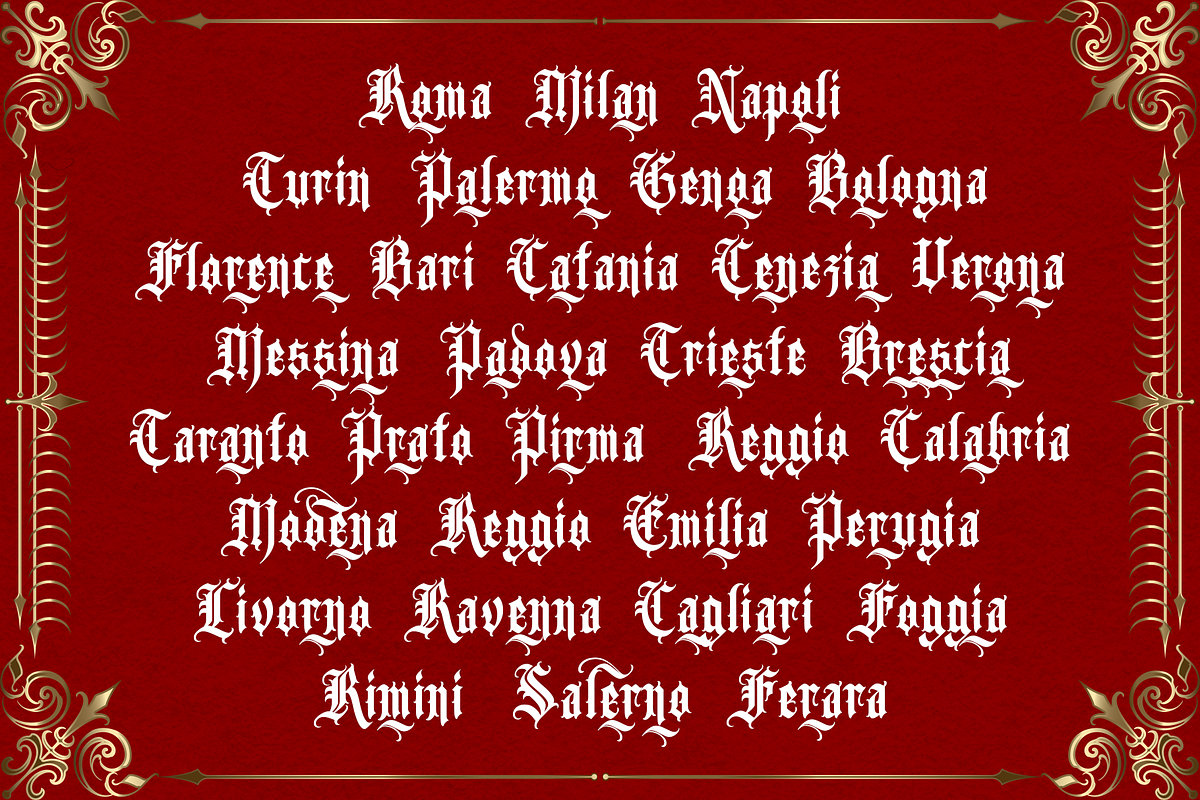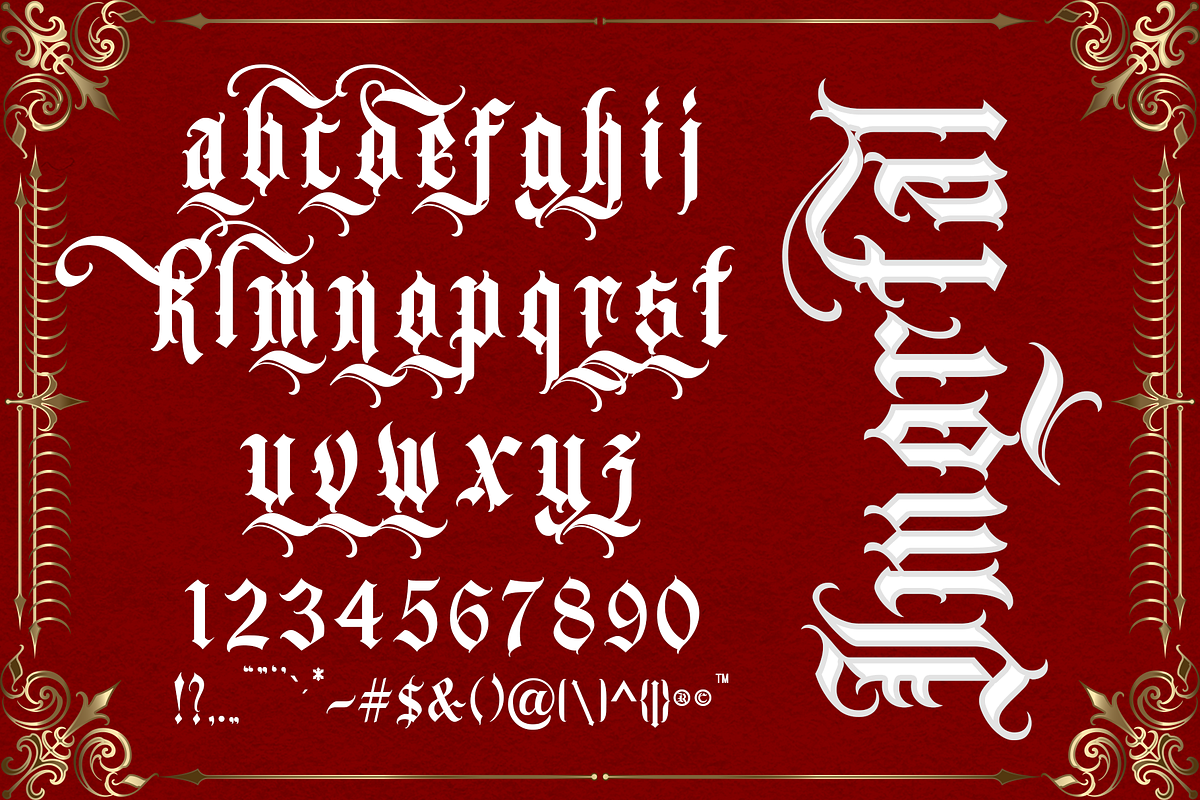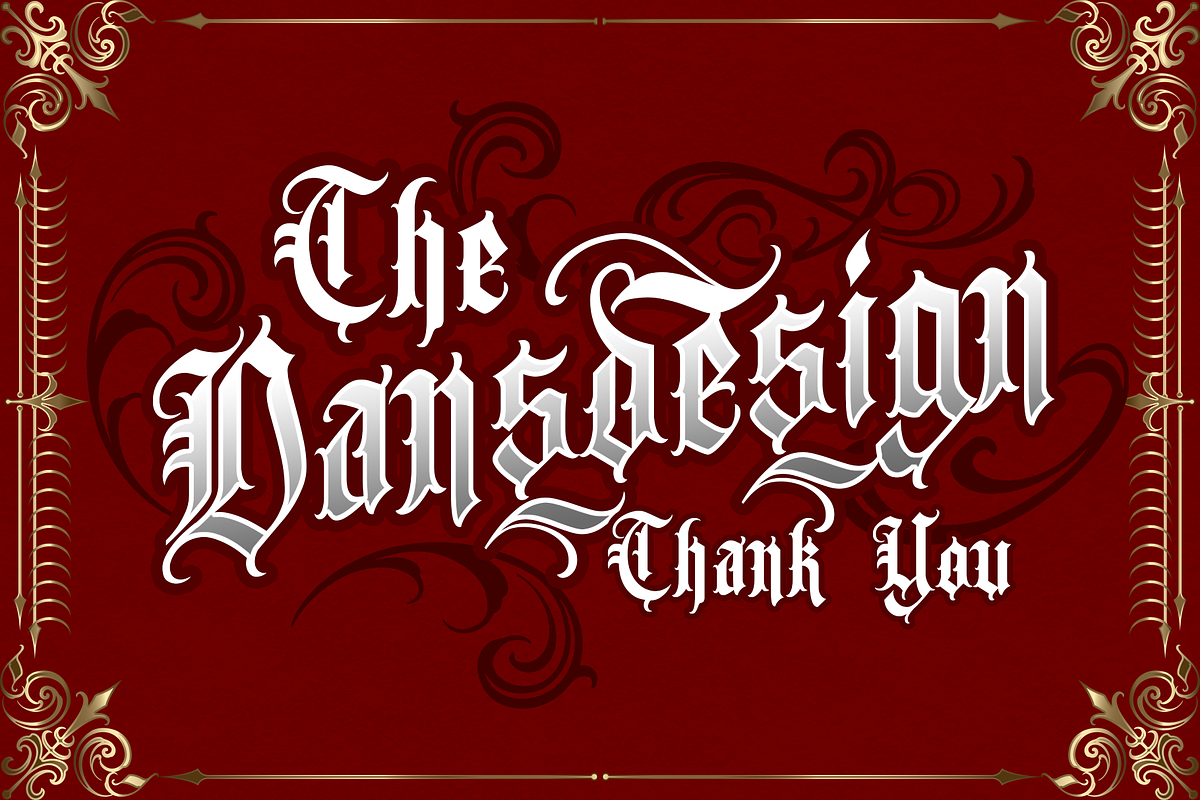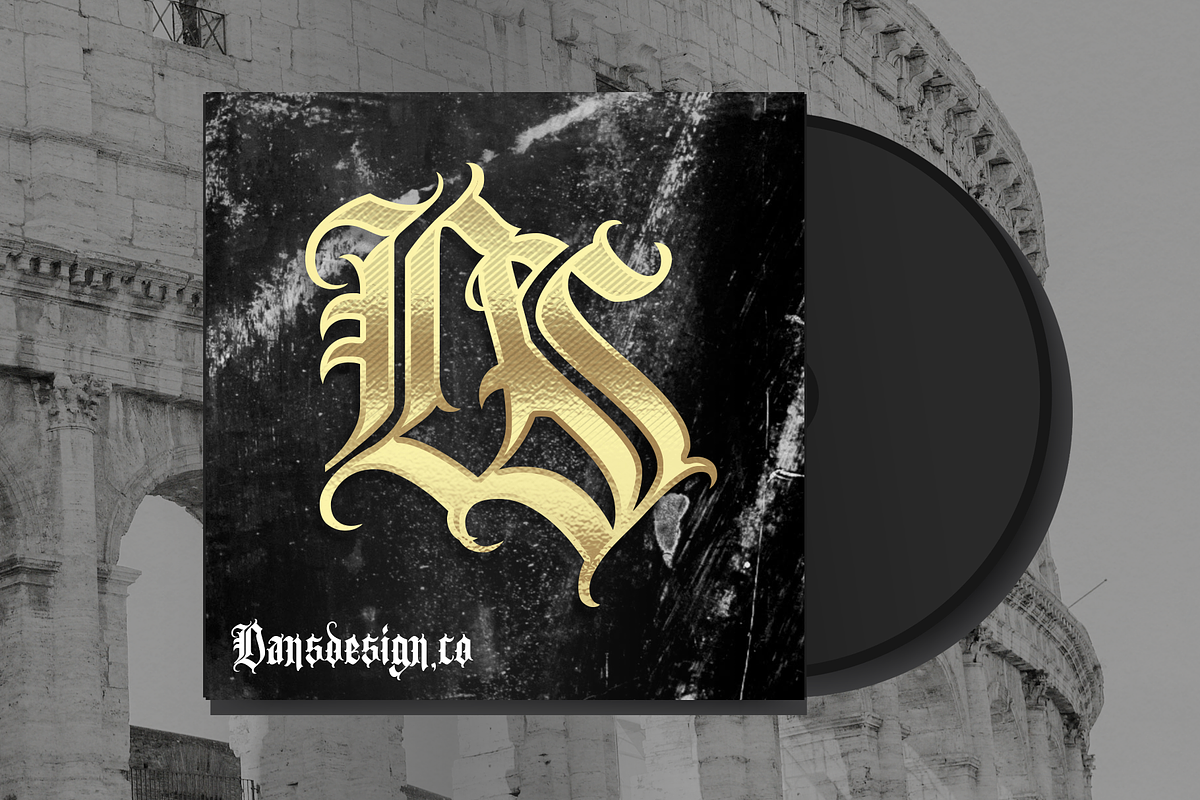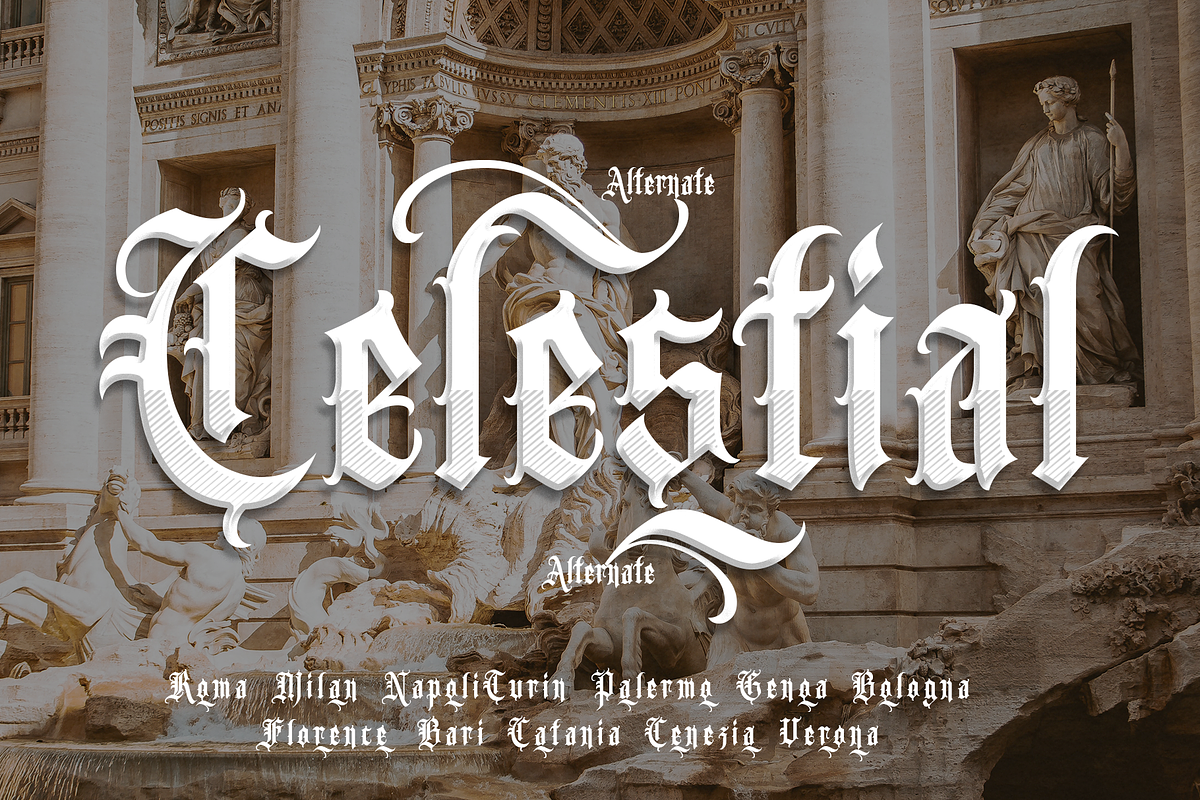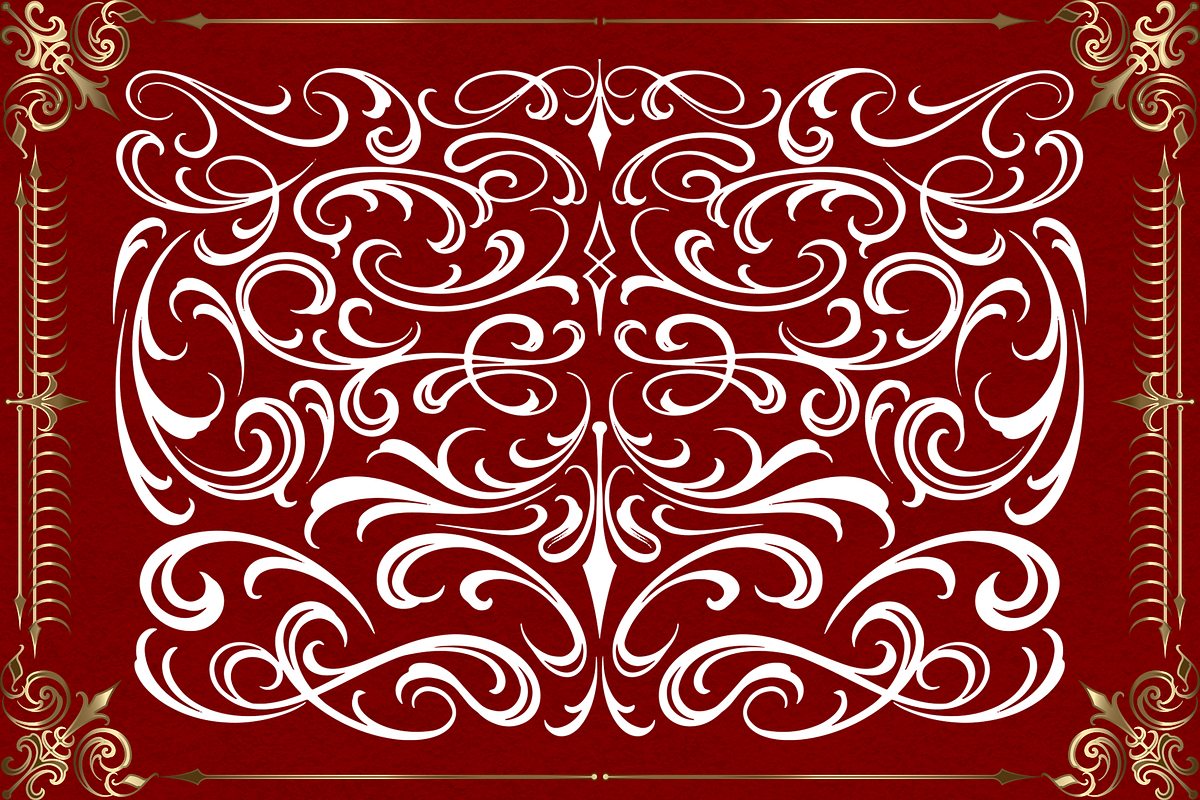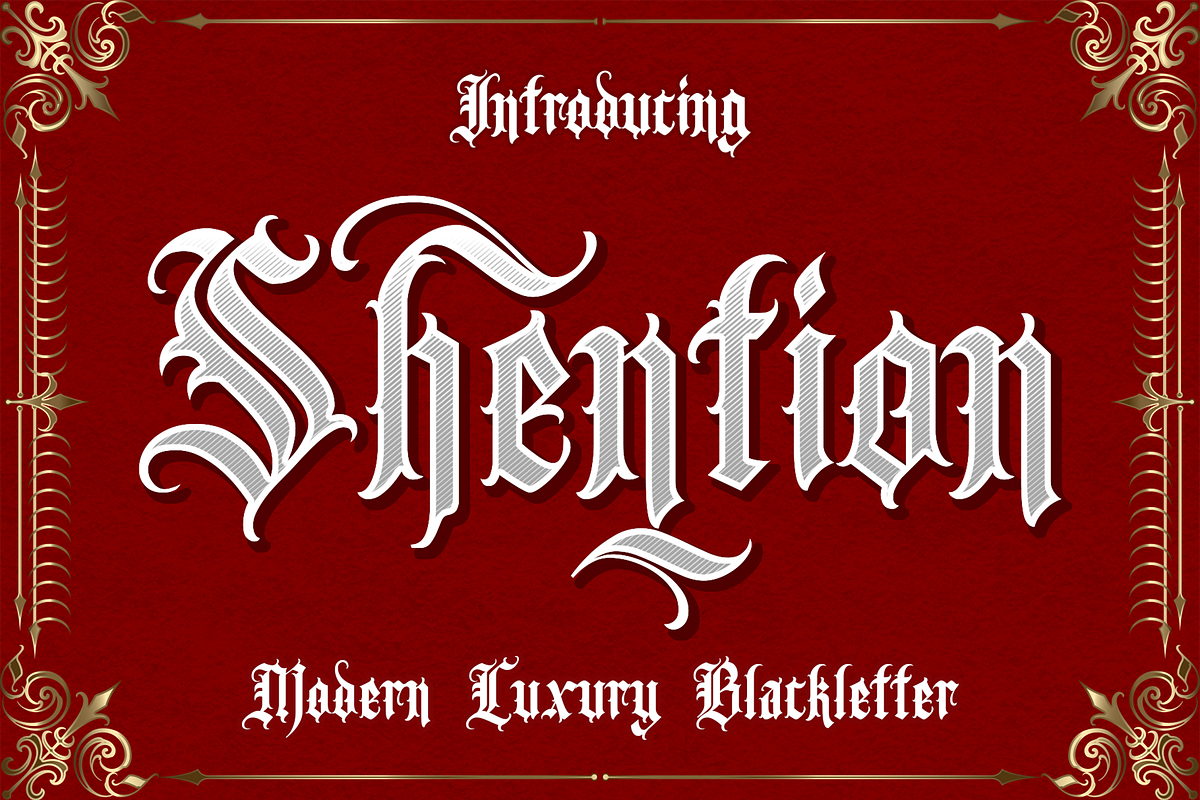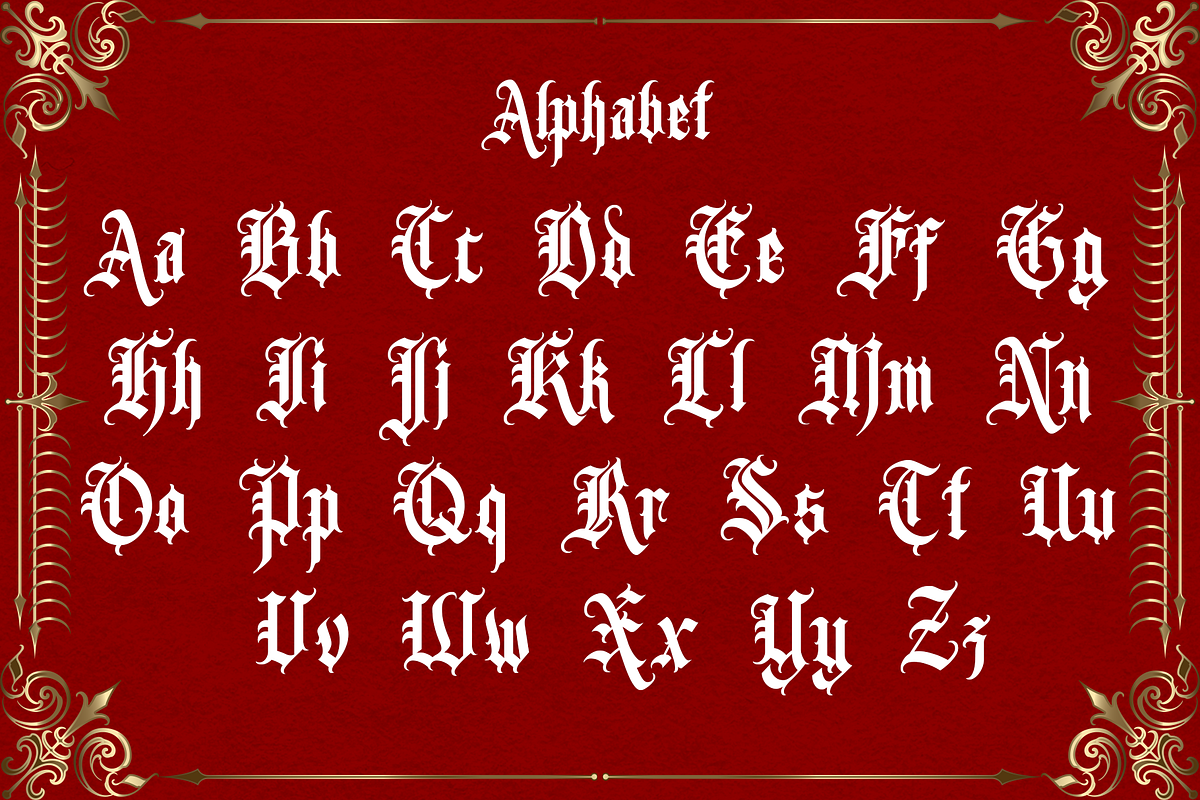
Shention Blackletter
Dansdesign Proudly present Shention modern blackletter font, This font is made with references to various letters that I combine and design with my style.
Shention are great and usefull for product logo, poster title, headline, packaging, badge, packaging logo , clothing brand logo, Vintage design and much more